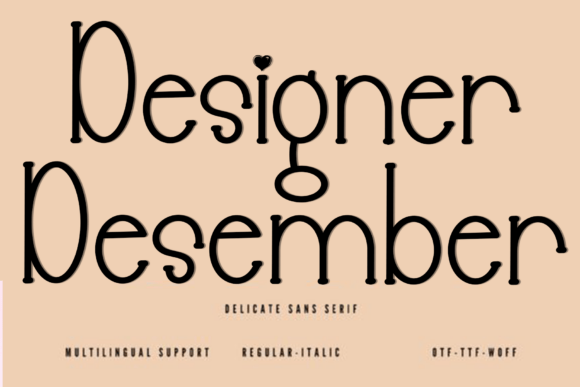
Enter the Designer Desember Font, a charming and playful typeface designed to add a touch of warmth and friendliness to your designs. With its round, hand-drawn strokes and approachable feel, this font is perfect for personal projects, invitations, and social media graphics. Whether you’re a seasoned designer or just starting out, the Designer Desember Font is a valuable addition to your toolkit, offering a unique aesthetic that’s sure to make your work stand out.
Designer December Font Key Features
- Font Family: Includes 12 unique font styles with various weights and italics.
- Unique Characteristics: Features a unique, hand-drawn design with intricate details and ornaments, perfect for festive and holiday-themed projects.
Designer Desember Font Review
As a designer, I’ve had the chance to work with a lot of fonts, and I must say that Designer Desember is an interesting one. ✨ Here are some things that I think work well:
- Unique aesthetic: Designer Desember has a distinct, festive feel to it that’s perfect for holiday-themed projects.
- Good for bold typography: The font’s bold weight is quite striking, making it ideal for headlines and titles.
- Supports multiple languages: Designer Desember is a multilingual font, so you can use it for projects in various languages without worrying about compatibility issues.
However, like any font, Designer Desember has its limitations. ⚠️ Some things that I think need improvement include:
- Limited font weights: While the bold weight is great, the light weight could be more refined.
- No italics: The font doesn’t have an italic version, which might be a problem for some designers who prefer to use italics for emphasis.
Overall, I think Designer Desember is a solid choice for holiday-themed projects or any project where you want a bold, festive feel. It’s not perfect, but it’s a great option to have in your font arsenal.
The Designer December font is ideal for:
- Winter-themed designs (e.g., Christmas, New Year’s, etc.).
- Vintage-inspired designs.
- Adding a touch of elegance and sophistication to your designs.